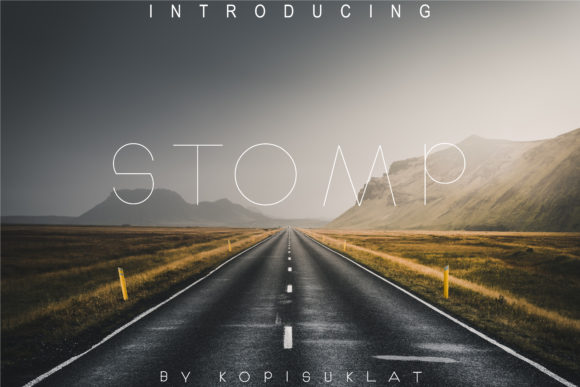
Embark on a typographic adventure with Stomp Font, a captivating sans serif typeface that will ignite your imagination! Whether you're a seasoned designer or just starting to explore the realm of typography, Stomp Font is your perfect companion.
With its clean lines and geometric precision, Stomp Font exudes a sense of sophistication and modernity. The regular font weight is ideal for elegant body text, adding a touch of class to your designs. And when you need to make a bold statement, the bold font weight is the perfect choice. The combination of these two weights gives you endless possibilities to create visually stunning designs that will captivate your audience.
Stomp Font is not just another font; it's a gateway to a world of creativity. Imagine your website's headlines popping off the screen with Stomp Font's bold presence. Picture your social media posts standing out from the crowd with the font's unique geometric flair. And envision your marketing materials making an unforgettable impact with the typeface's sophisticated elegance.
But beyond its eye-catching aesthetics, Stomp Font is also incredibly versatile. Its clean and legible design makes it perfect for a wide range of applications, from branding and packaging to web design and motion graphics. Whether you're creating a minimalist logo, a dynamic website, or a captivating marketing campaign, Stomp Font has got you covered.
Crafted by kopisuklat, a renowned font foundry, Stomp Font is a testament to their passion for typography. Each letterform has been meticulously designed to ensure that it's not just visually appealing but also highly functional. So whether you're a seasoned pro or a typography novice, you can trust Stomp Font to deliver exceptional results.
So why settle for ordinary fonts when you can have the extraordinary? Download Stomp Font today and unleash your creativity. Let its sleek lines and bold personality add a touch of sophistication to your designs and make your projects stand out from the crowd. Join the typography revolution with Stomp Font, where every character tells a story and every design is a masterpiece.